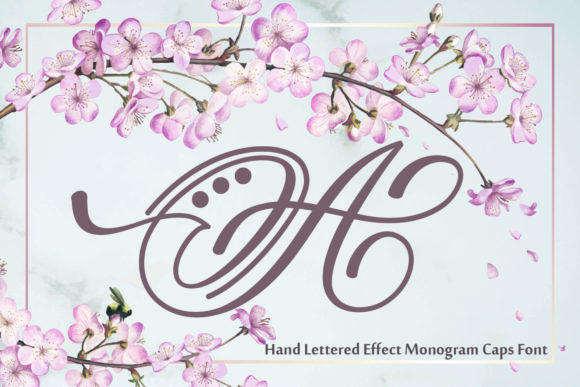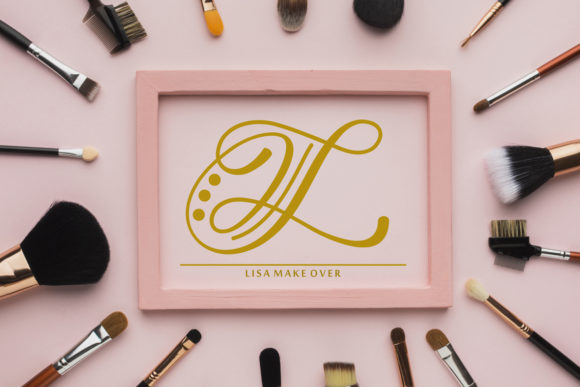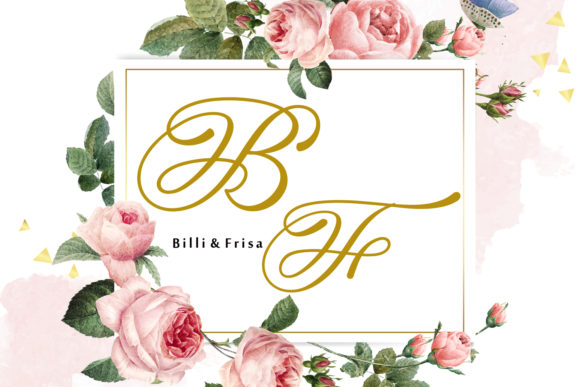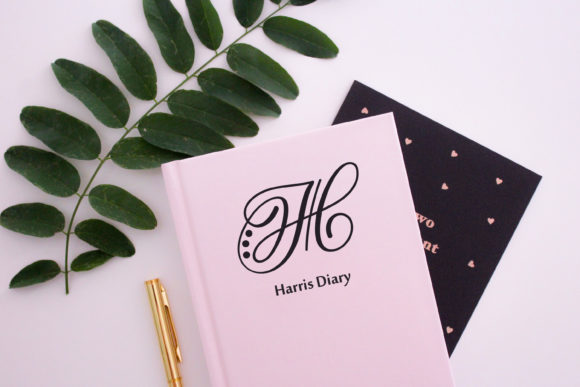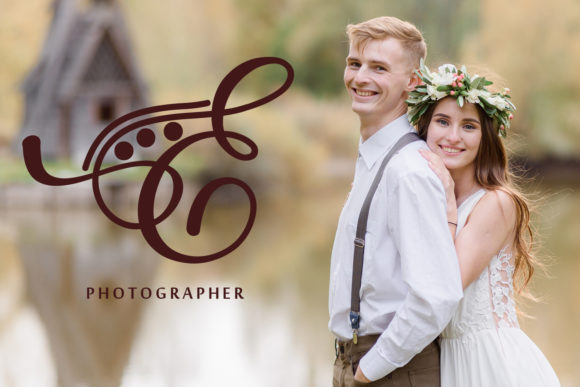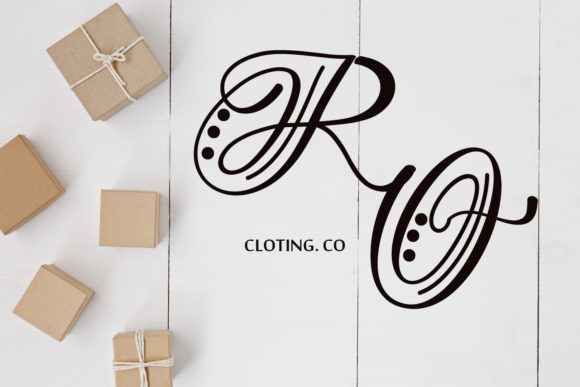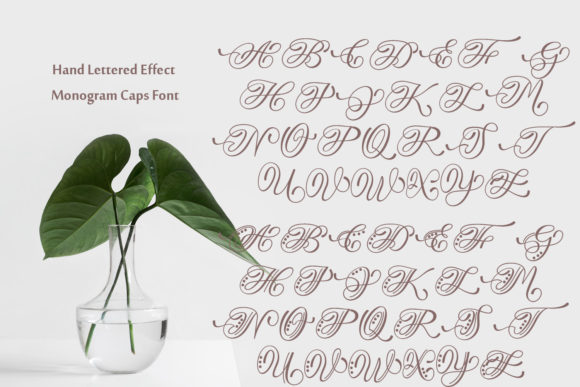
Hand Lettered Effect Monogram Font
About Hand Lettered Effect Monogram Font
Hand Lettered Effect Monogram is a beautiful script font. It features romantic characters that make it perfect for any wedding-themed project.